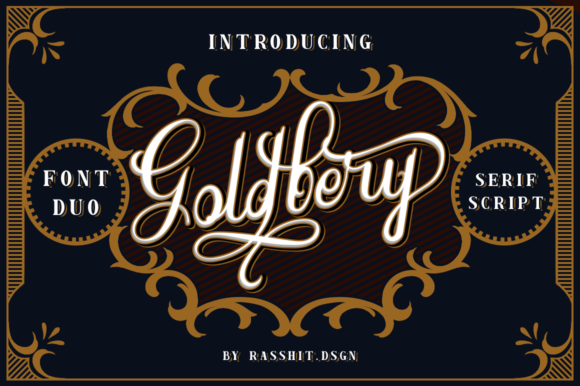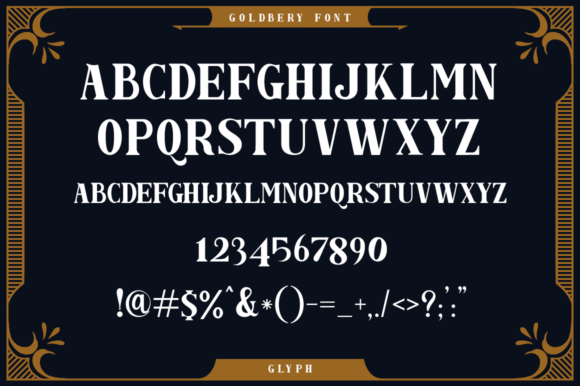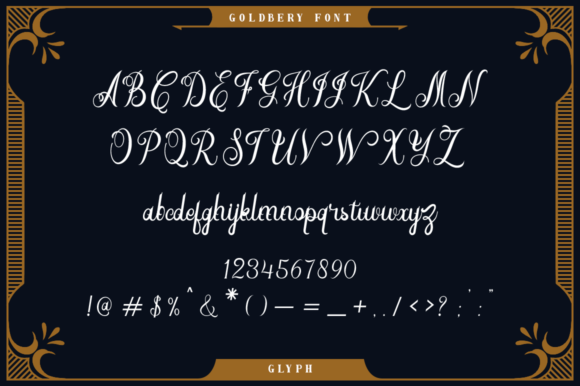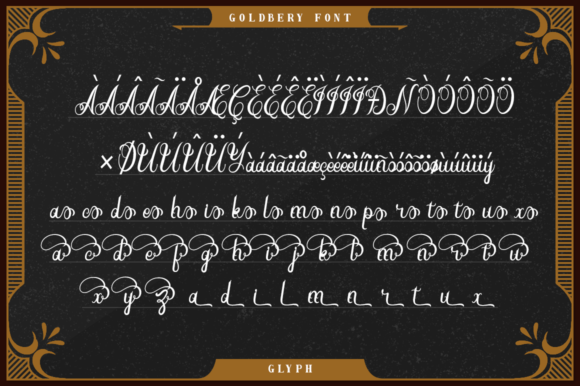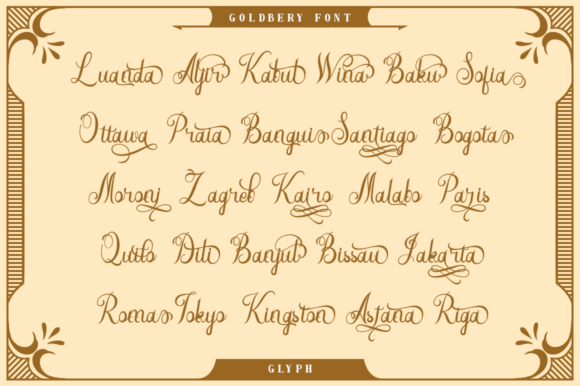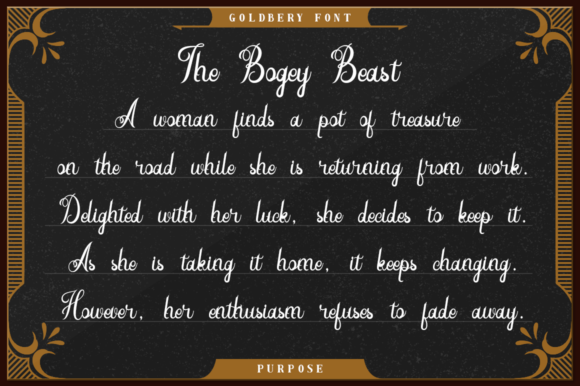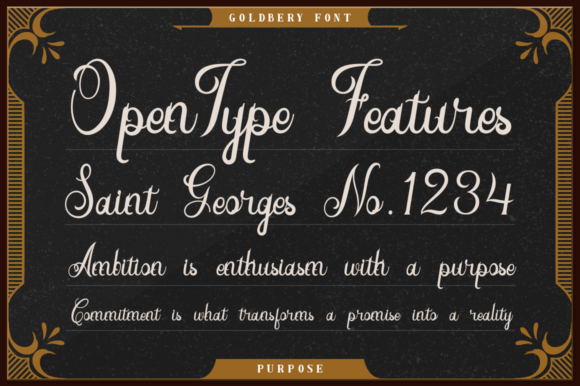
Discover the Timeless Elegance of Goldbery Font
Have you ever found yourself lost in a sea of paper scraps, glue sticks, and abandoned craft projects, only to stumble upon a font that sparks a creative fire within you? For many designers, this moment is a defining one – the moment when a font becomes the perfect catalyst for a project’s success. For me, that font was Goldbery, a classic and elegant script font that adds a touch of vintage luxury to any craft project.
Goldbery Font is more than just a pretty face; it’s a valuable tool for designers looking to add a sophisticated touch to their work. Its versatility makes it perfect for a wide range of projects, from wedding invitations to custom signage. Whether you’re a seasoned pro or a crafty newbie, Goldbery Font is sure to become a trusted companion in your design journey.
- Unique Characteristics: The font features a unique blend of modern and vintage elements, with intricate details and subtle textures that add depth and visual interest.
Goldbery Font Review
I recently had the chance to work with the Goldbery font, and I must say it’s an interesting addition to any design project. Here’s my honest take on what works well and what doesn’t.
- ✨ Unique Design: The Goldbery font has a distinctive, hand-drawn feel that sets it apart from more common fonts.
- ✨ Versatility: This font works well for both body text and headings, making it a great option for a variety of projects.
- ✨ Elegant Touch: The font’s subtle flair and curves add an elegant touch to any design, making it perfect for luxury or high-end projects.
- ⚠️ Readability: At small font sizes, the Goldbery font can be difficult to read, especially for body text.
- ⚠️ Limited Character Set: The font’s character set is somewhat limited, which may cause issues when working with non-English text.
- ⚠️ Overuse: The font’s unique design can be overwhelming if used extensively throughout a project, so be sure to balance it with other fonts.
Overall, the Goldbery font is a great addition to any designer’s toolkit. While it may have some limitations, its unique design and versatility make it a great option for the right projects.
The Goldbery Font is ideal for:
- Creatives and designers looking for a unique, elegant font.
- Businesses needing a professional font for marketing materials.
- Individuals seeking a font for personal projects or blog posts.
Alternatives to Goldbery Font
Open Sans is a clean and modern sans-serif font suitable for body text and titles. It’s highly legible and works well for digital products, such as websites and mobile apps. It’s a good alternative to Goldbery Font for projects that require a neutral and approachable tone.
Comparison: Open Sans has a more straightforward and minimalistic design compared to Goldbery Font, which has a more elegant and refined feel. Open Sans is also more versatile and works well in various contexts, while Goldbery Font is more suited for luxury or high-end projects.
Lato is a modern sans-serif font with a friendly and approachable tone. It’s suitable for body text and titles, and works well for websites, mobile apps, and print materials. It’s a good alternative to Goldbery Font for projects that require a warm and inviting feel.
Comparison: Lato has a more rounded and friendly design compared to Goldbery Font, which has a more angular and refined feel. Lato is also more suitable for projects that require a humanistic and approachable tone, while Goldbery Font is more suited for luxury or high-end projects.